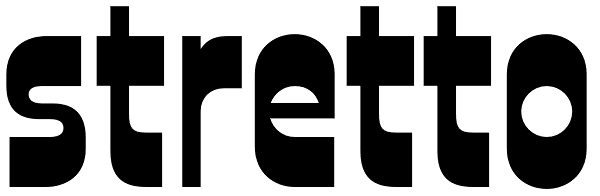
Stretto
Stretto (Italian for narrow) is a revival and expansion of an Aldo Novarese font called Sintex, done for VGC in 1973. Openly idiosyncratic and rebellious in its design idea, Stretto fuses the straights and rounds together in a most unusual manner...